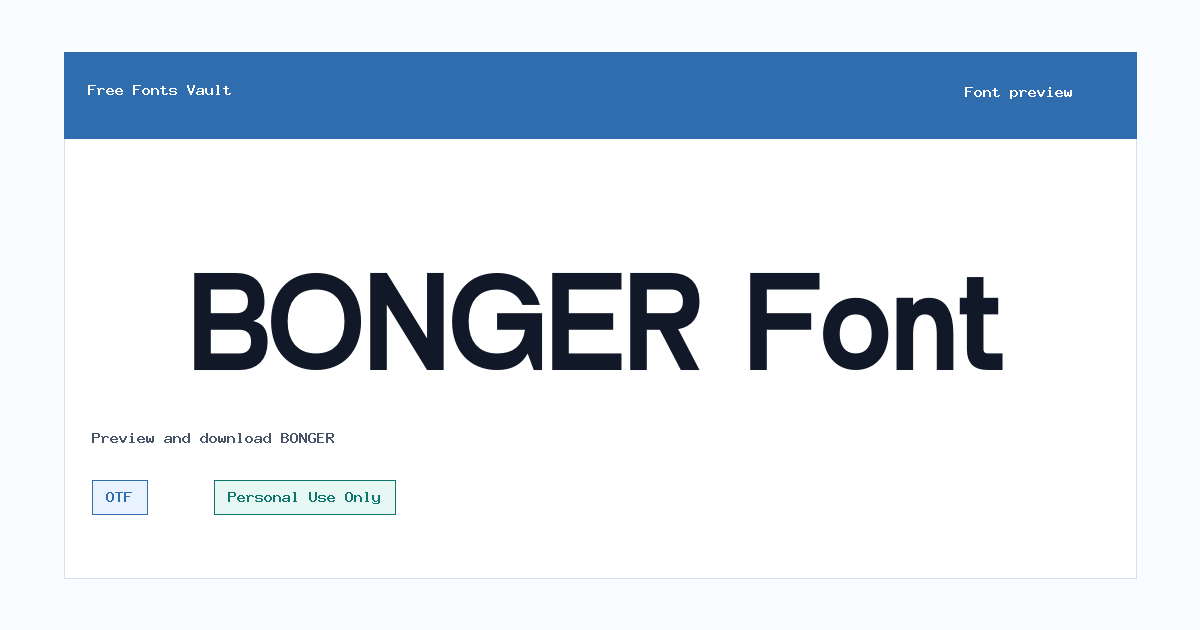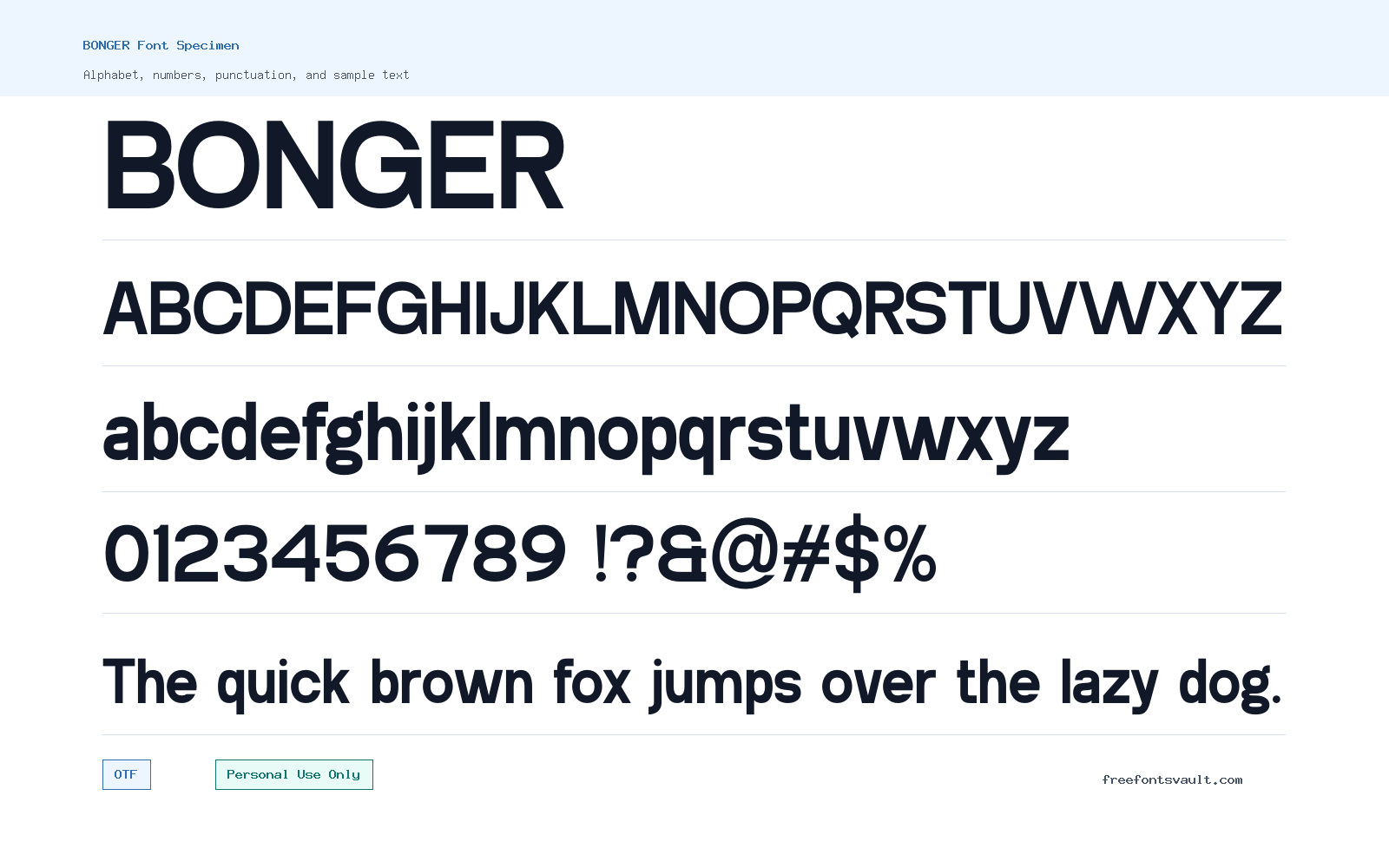
BONGER
- Designer Maikohatta
BONGER is a personal-use sans serif font by Maikohatta, offered as an OTF regular style. It is a practical choice to test when you need clean display text for non-commercial design drafts, previews, posters, and mockups.
BONGER works best as a short-text display face rather than a long-reading font. Since the downloadable file is a regular-weight OTF, it is easy to try in common design apps and preview tools that support OpenType fonts. Use the preview box to test the exact words you plan to design with, especially if the text includes mixed case, punctuation, numbers, or brand-style wording. A font can feel very different in a real headline than it does in a sample alphabet, so check your own title, slogan, or layout copy before committing to it.
For designers, BONGER is most useful in quick visual experiments: poster headlines, social graphics, personal logo concepts, cover mockups, packaging drafts, website hero text, and portfolio studies. Keep the text short and give the letters enough spacing and breathing room. If you are using it for logo work, test the name at small and large sizes, then review the shapes in black and white before adding color or effects. For web mockups, use it as a headline accent and pair it with a more neutral, readable font for paragraphs, menus, captions, and interface text. That keeps the layout clear while still giving the design a distinct display voice.
When pairing BONGER, avoid combining it with another attention-heavy display typeface unless the design is intentionally loud. A simple sans serif or readable serif will usually make a better partner for body copy. In a poster or web hero, let BONGER handle the main title, then use the supporting font for date, price, description, buttons, and legal text. This contrast helps the main word stand out without making the whole page feel crowded.
- Sans serif display style suited to short headings, logo drafts, posters, and mockups
- Clean single-style family setup that is easy to preview and compare in layouts
- Useful for non-commercial concept work where a direct headline font is needed
- Best paired with a simpler text font for paragraphs, navigation, and small details
- Personal poster designs
- Non-commercial logo concepts
- Social media graphics
- Website hero mockups
- Portfolio experiments
- Cover or title treatments
- Short display headlines
- School or practice design projects
What kind of projects is BONGER good for?
It is best for short display use such as personal posters, logo drafts, social graphics, cover titles, and web mockups. For longer reading text, pair it with a simpler font.
Why should I preview my own text first?
Display fonts can change character depending on the exact word, letter combinations, spacing, and size. Testing your real headline helps you see whether BONGER fits the design.